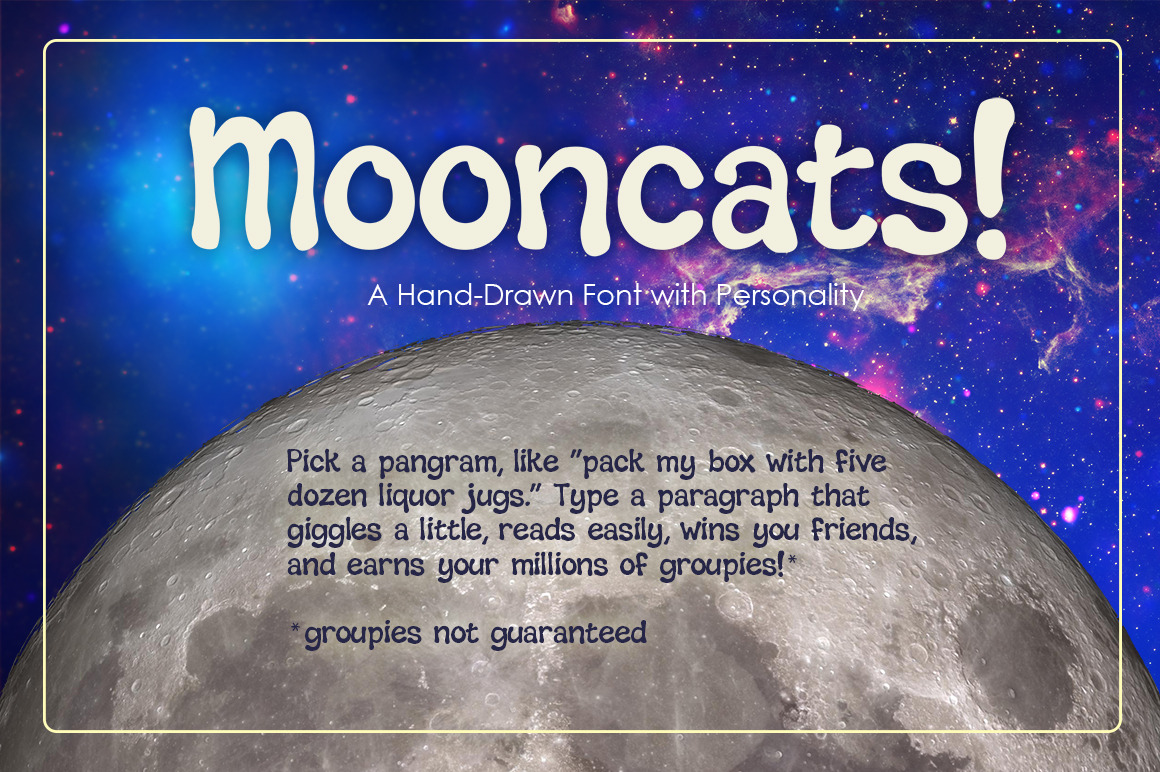
Mooncats— a hand-drawn font
Mooncats is my very first font, based on a quick bold lettering style I do in my journals. It looks good at both small and large sizes; in fact I think it will work great as a comic lettering font.